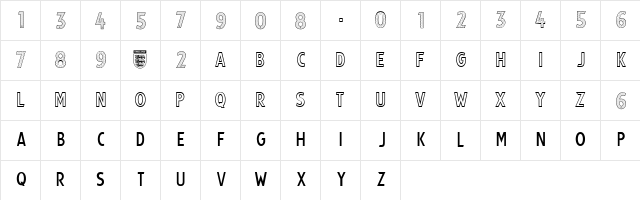
England2007 Regular Font Preview
England2007 Regular
Design Context for England2007 Typeface
England2007 offers clean, dependable letterforms without strong stylistic allegiance, making it a practical choice for designers who need flexibility.